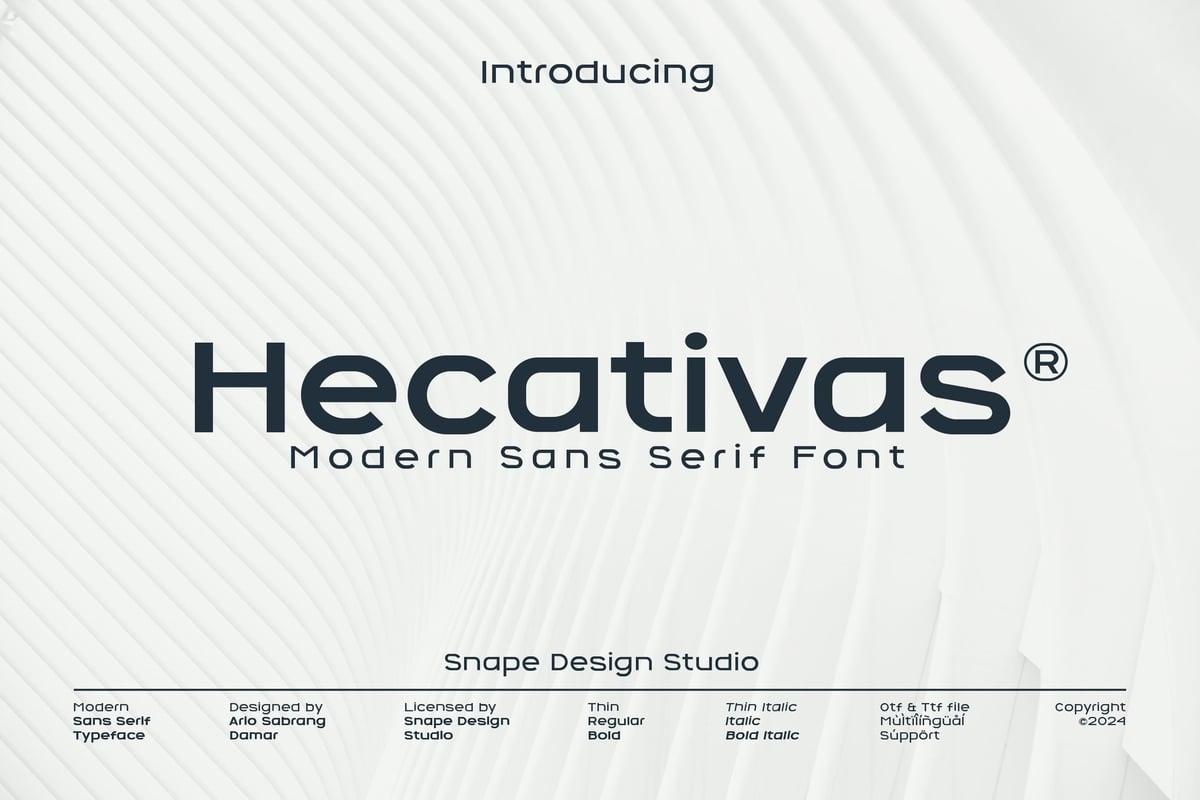
Hecativas - Modern Sans Serif Font
Elevate your designs with Hecativas, a sleek modern sans serif that delivers contemporary elegance through minimalist sophistication. This contemporary typeface features clean lines and geometric precision, making it the perfect choice for projects that demand simplicity without sacrificing style. Whether you're crafting corporate branding, editorial layouts, or digital interfaces, Hecativas brings a professional touch to any creative endeavor. With its balanced letterforms and excellent readabi...
Hecativas - Modern Sans Serif Font